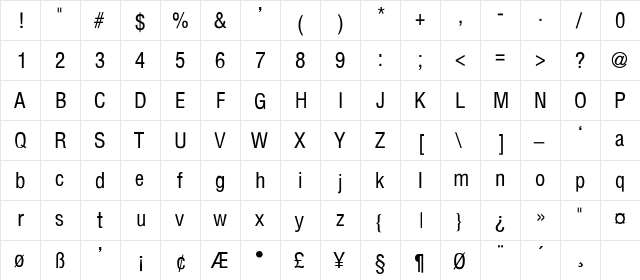
Partridge-Conth Regular
Design Context for Partridge-Conth Typeface
Partridge-Conth offers clean, dependable letterforms without strong stylistic allegiance, making it a practical choice for designers who need flexibility.